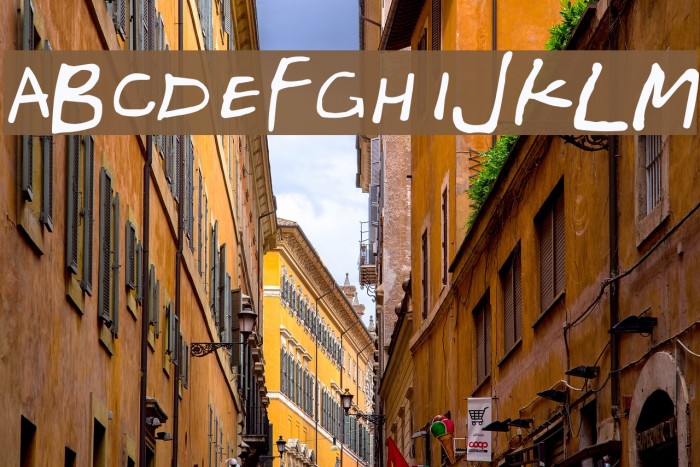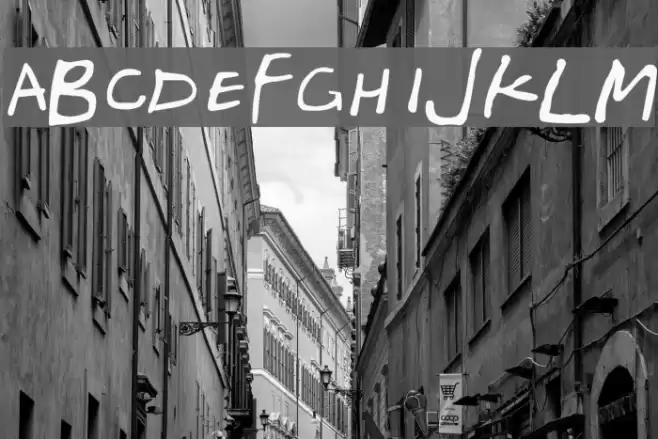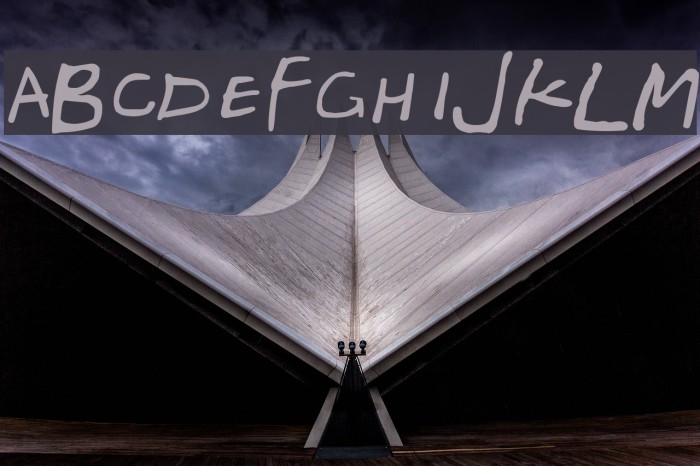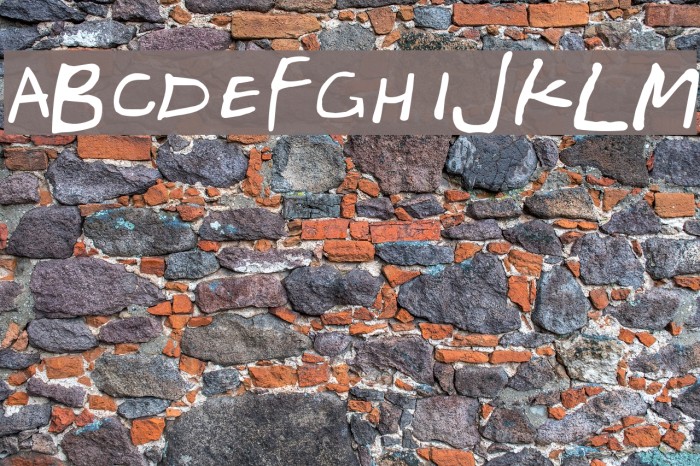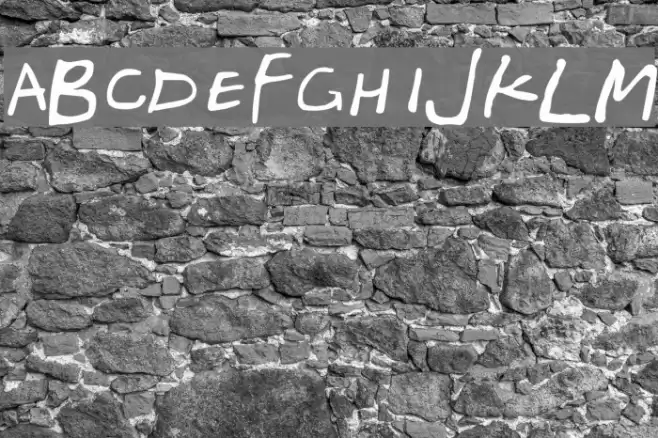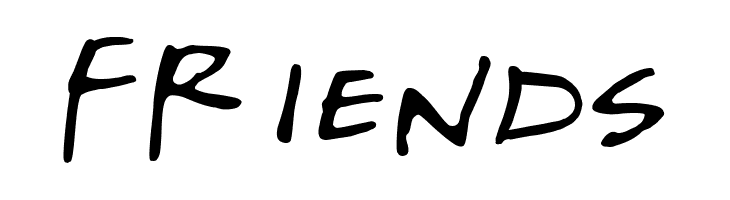
Friends Font
Friends Description
This font features a playful and casual handwritten style, characterized by its uneven strokes and slightly tilted letters. The uppercase and lowercase letters maintain a consistent flow, giving it an informal and approachable appearance. The numbers and special characters follow the same style, adding to the cohesive look of the font. The strokes vary in thickness, providing a dynamic and lively feel. This font is ideal for projects that require a personal touch or a relaxed vibe, such as greeting cards, invitations, or casual branding materials.